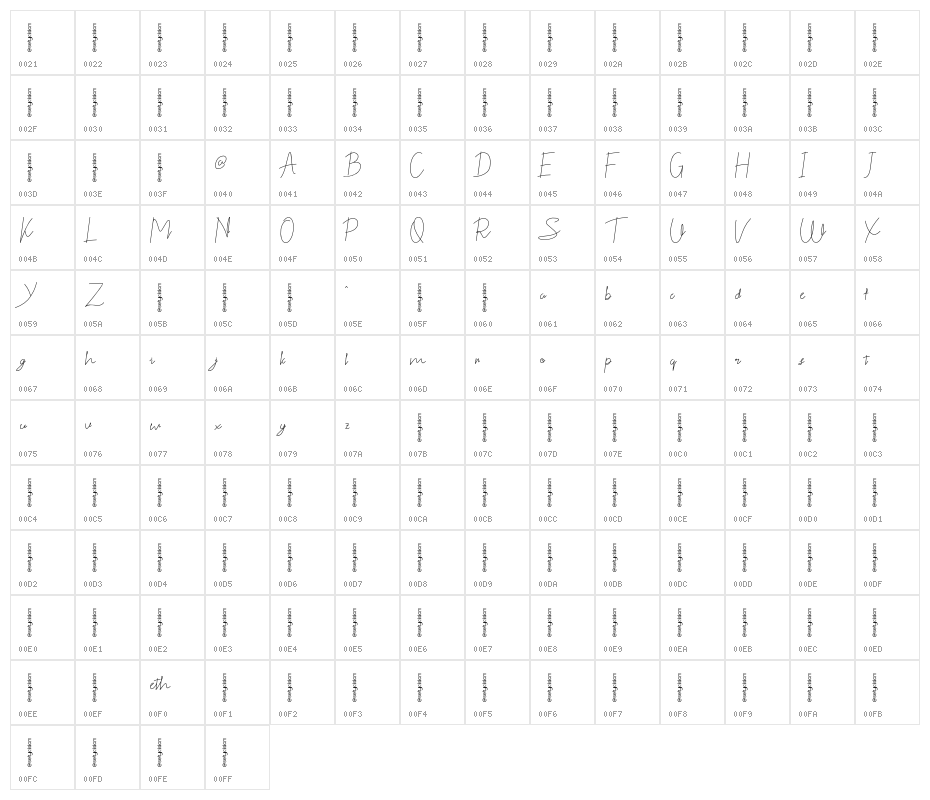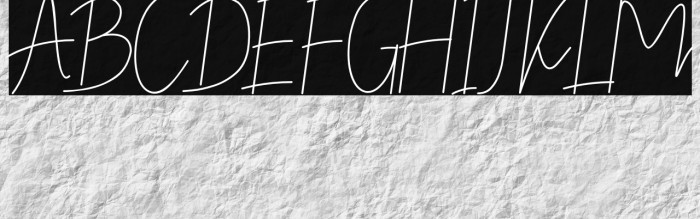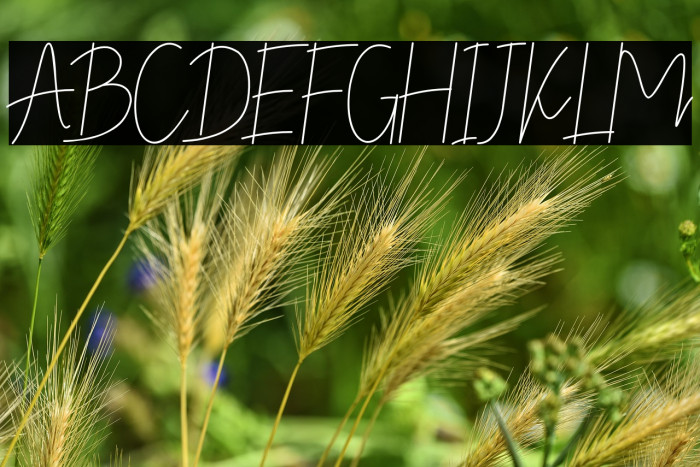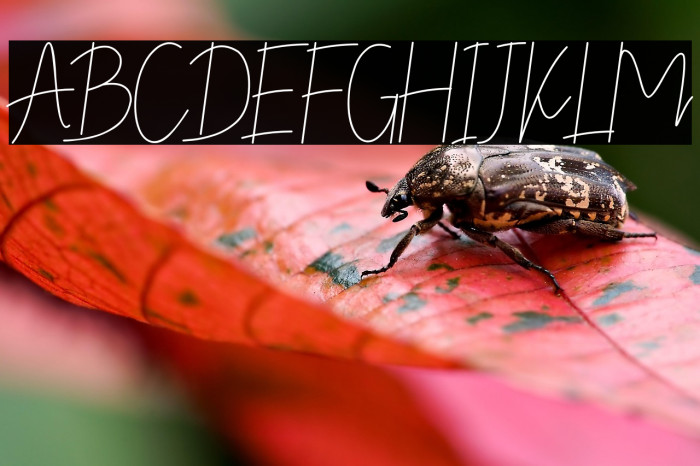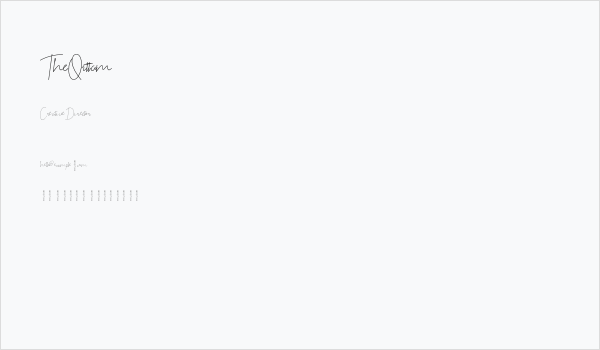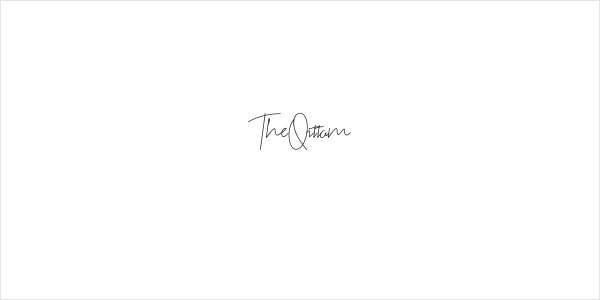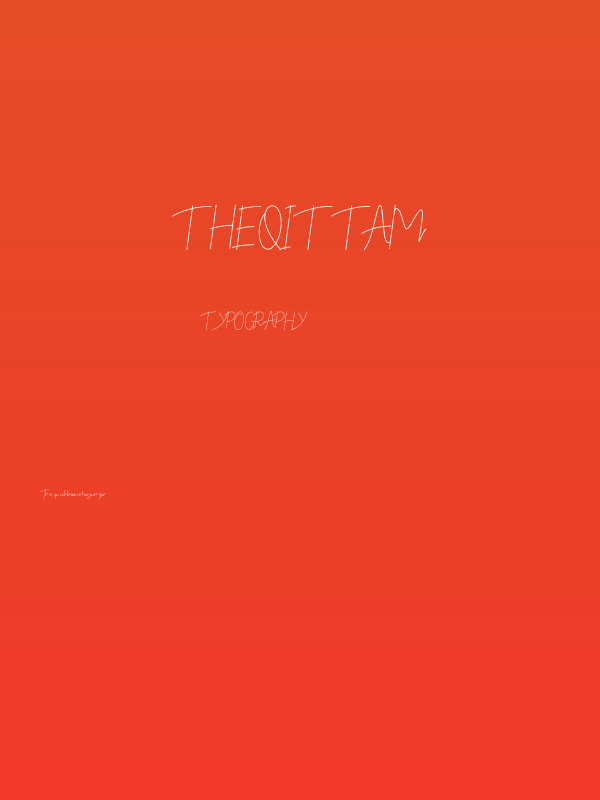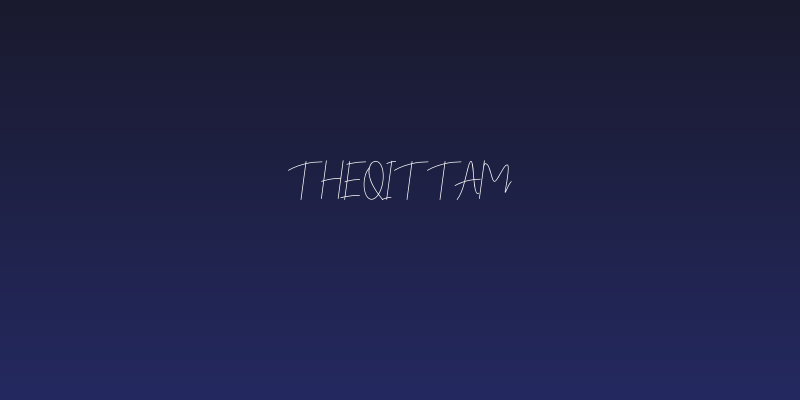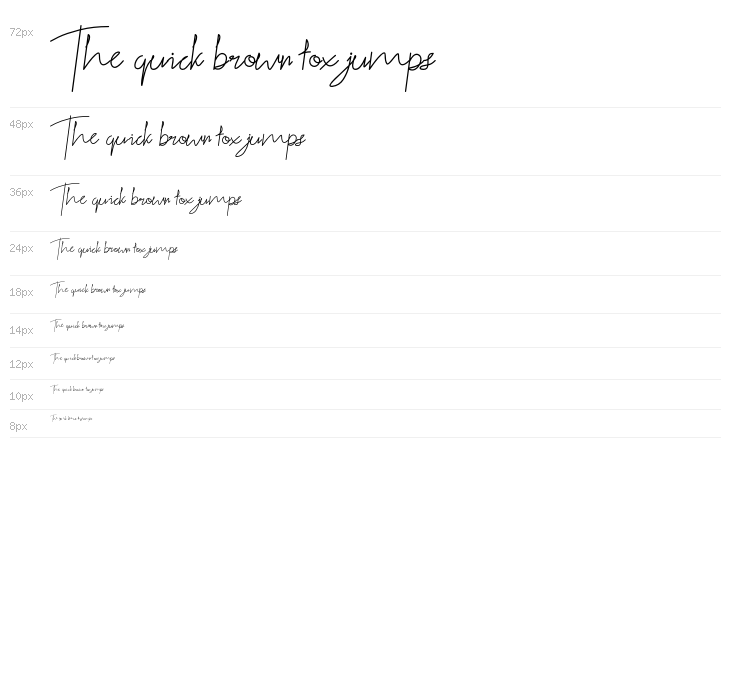
TheQittam Font
TheQittam Description
This font features a playful and whimsical handwritten style, characterized by its flowing and irregular strokes. The uppercase letters are tall and slightly slanted, giving a sense of movement and dynamism. The lowercase letters maintain a consistent style with a more compact form, adding to the overall casual and informal appearance. The numbers and special characters follow the same aesthetic, ensuring a cohesive look across all glyphs. This font's unique personality makes it suitable for creative and artistic projects where a personal touch is desired.
| Overall Style | Casual, Artistic |
| Use Case | Logos, Invitations, Personal projects |
| Proposed Projects | Ideal for greeting cards, invitations, personal branding, and artistic projects. |